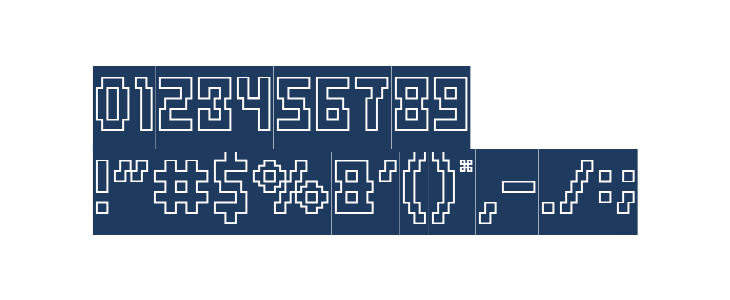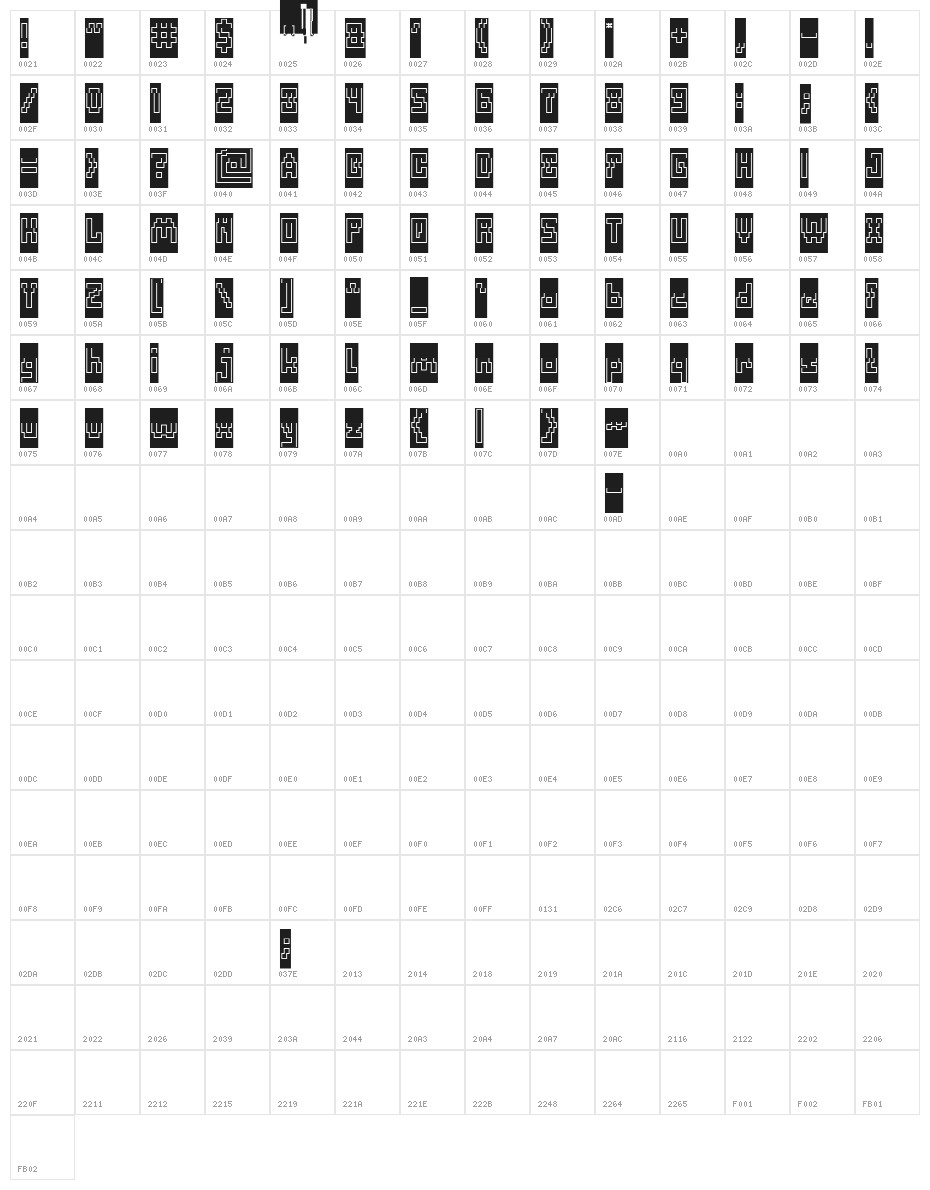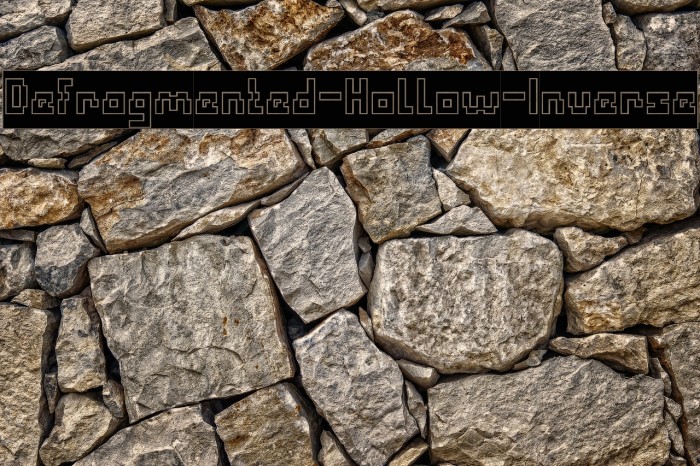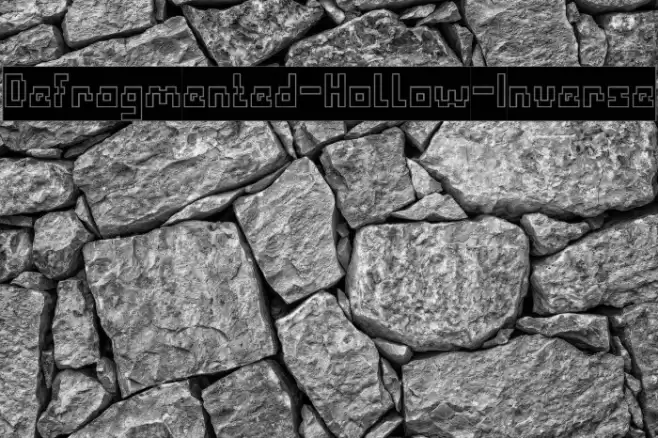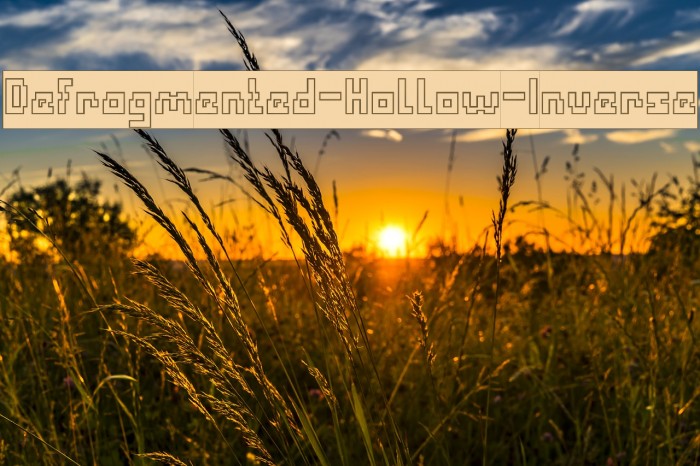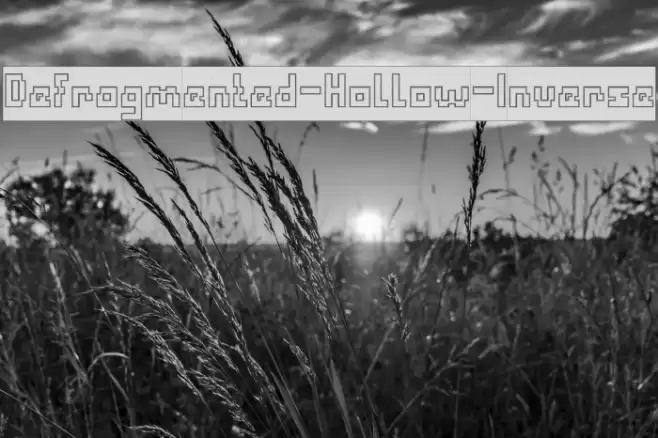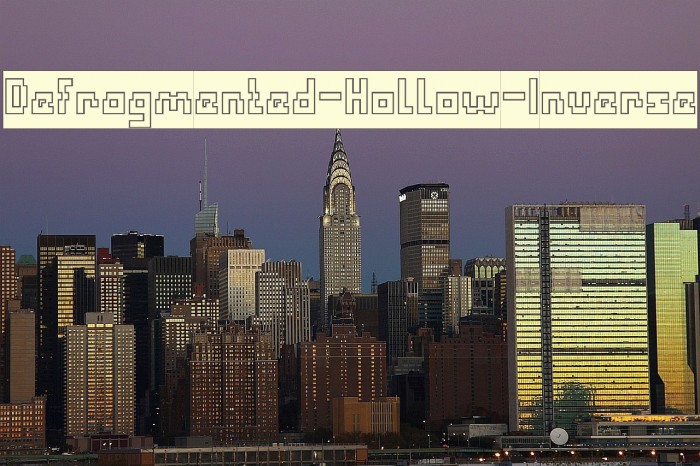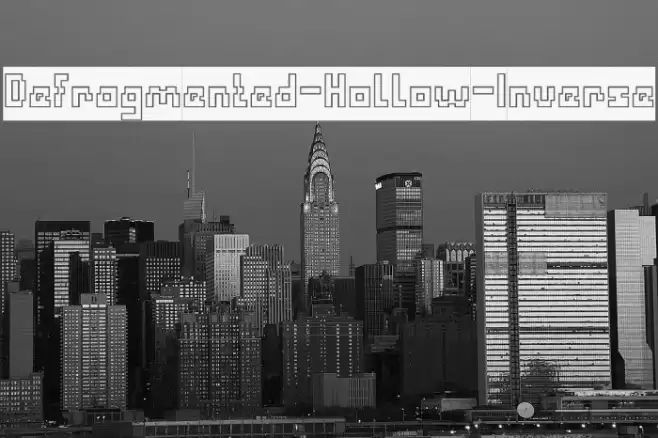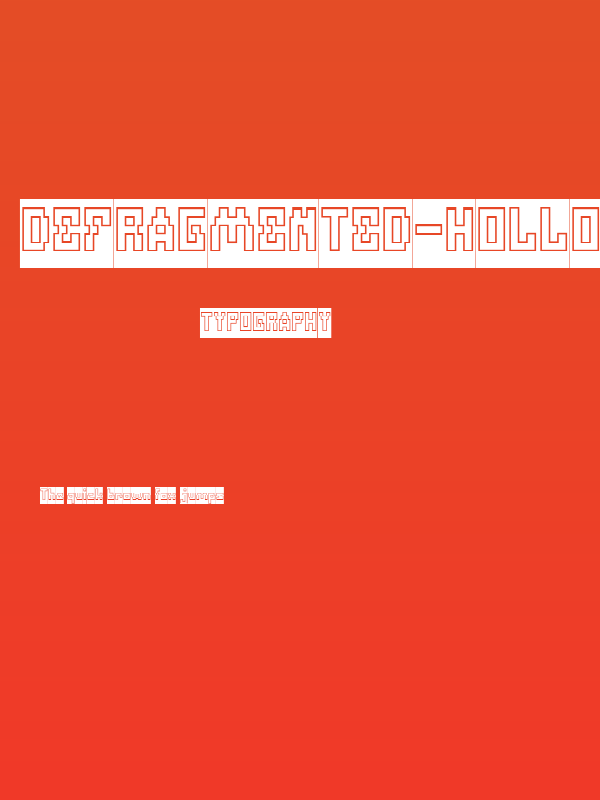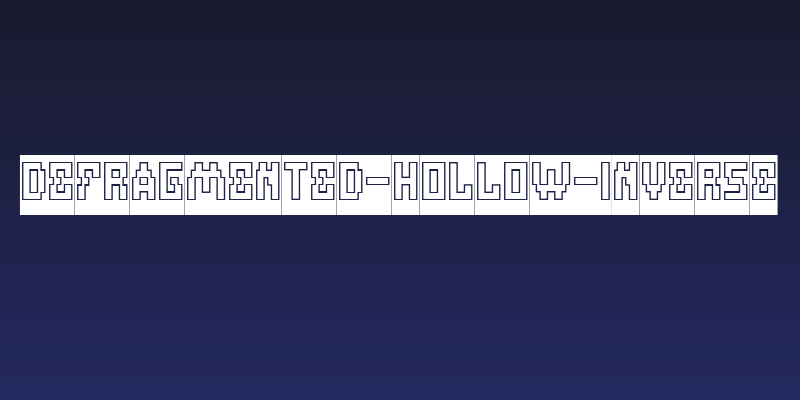
Defragmented-Hollow-Inverse Font
Defragmented-Hollow-Inverse Description
This font features a unique, hollow design with a digital, pixelated aesthetic. Each character is outlined with a bold, white stroke against a black background, creating a striking contrast. The geometric shapes and sharp angles give it a futuristic and tech-inspired look. The uppercase and lowercase letters maintain a consistent style, with the same hollow effect applied to numbers and special characters. This font's distinct appearance makes it ideal for projects that require a modern, edgy feel.